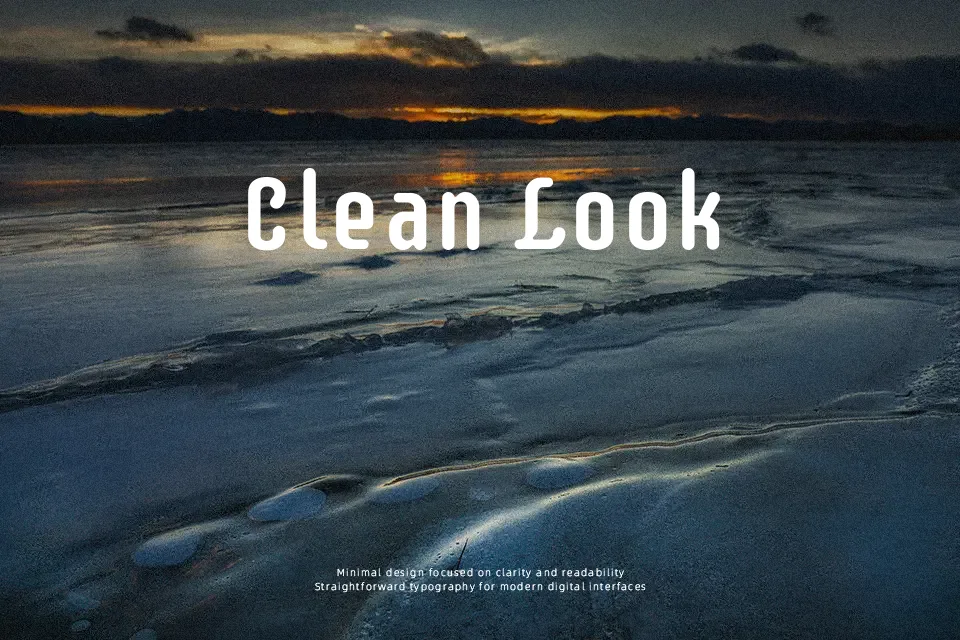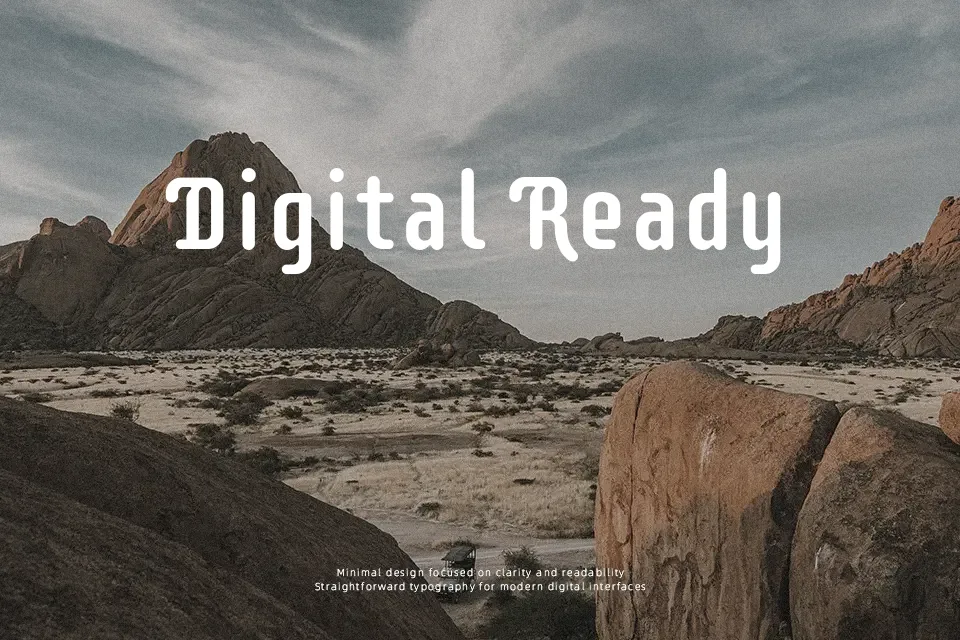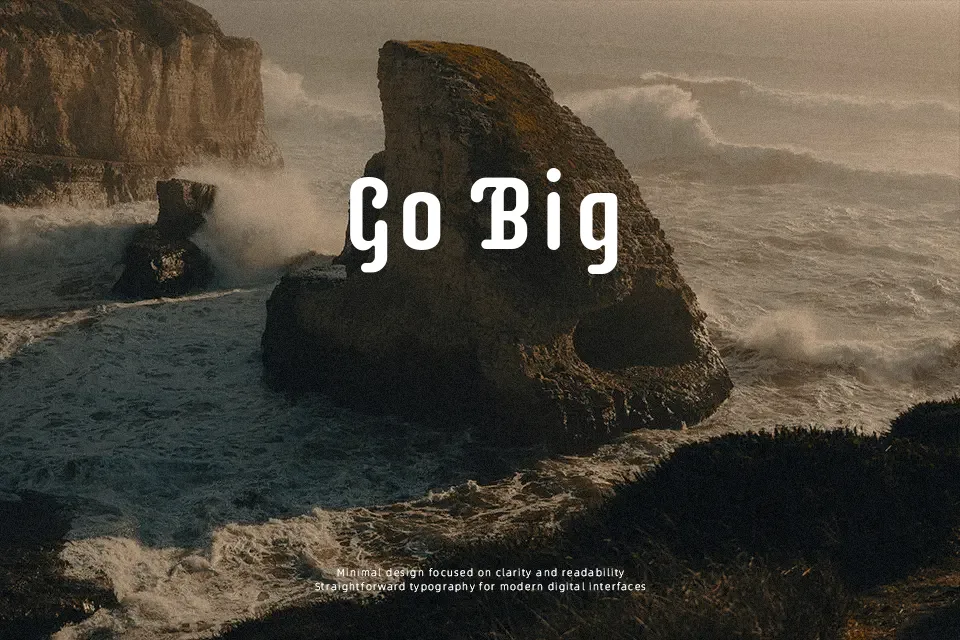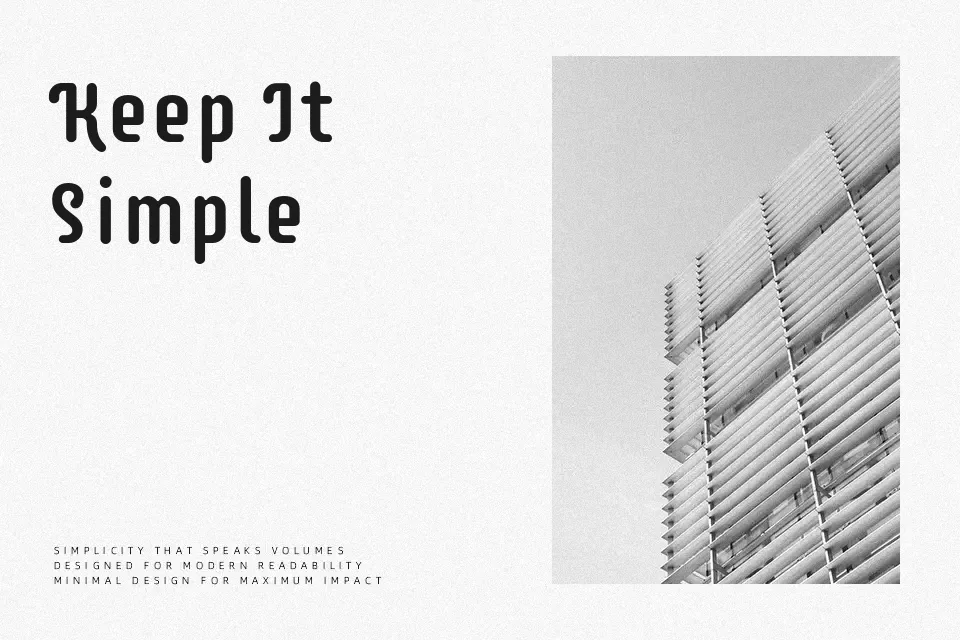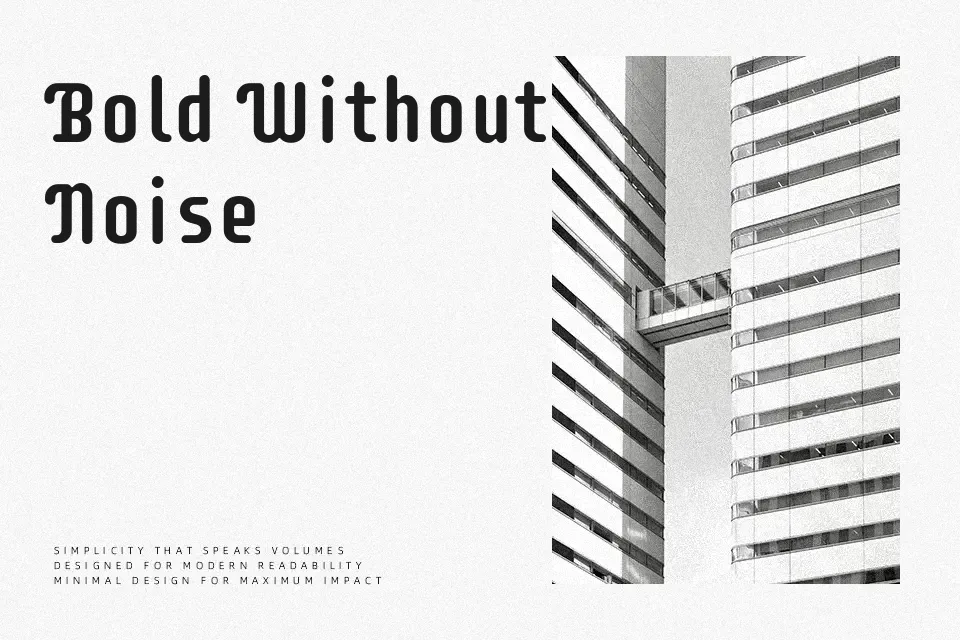
Supermercado One Font
Designed by James Grieshaber
Supermercado One has chunky, low-contrast strokes, open counters, and slightly squared curves that give it a sturdy yet approachable look. The spacing feels a bit tight and energetic, so words tend to form compact, eye-catching blocks rather than airy lines. Overall it reads as a casual display sans, somewhere between handmade shop signage and a simplified geometric style, which works nicely for food brands, bistro menus, price tags, promos, and playful product packaging. It holds up well at medium to large sizes where its quirky shapes can be appreciated, but it becomes noisy in dense body text or small UI labels. If you like friendly display sans serifs but find some script fonts too decorative, this lands in a practical middle ground.
colorful grocery or market branding,menu boards and chalkboard-style price lists,food and beverage packaging headlines,playful promo posters and social graphics
long-form body paragraphs or articles,formal corporate reports or legal documents,tiny UI labels or dense data tables,minimalist tech or luxury branding